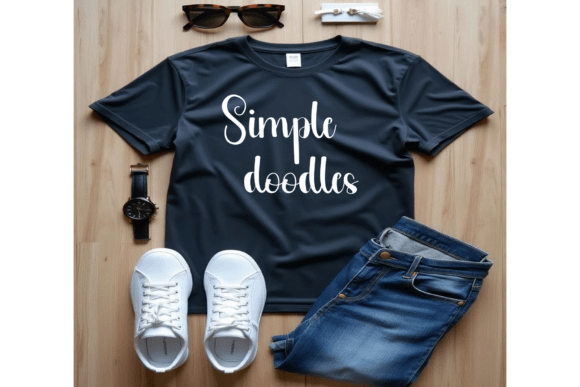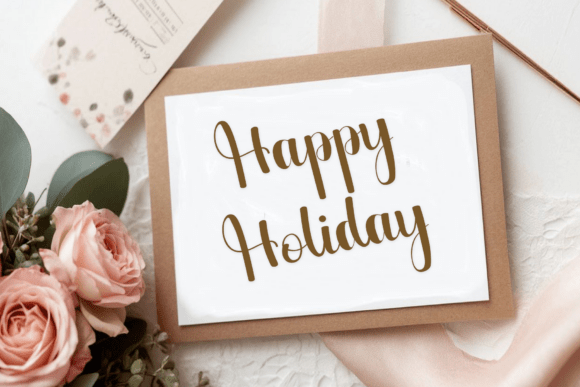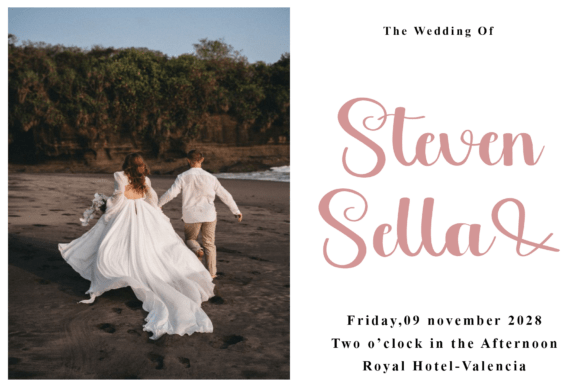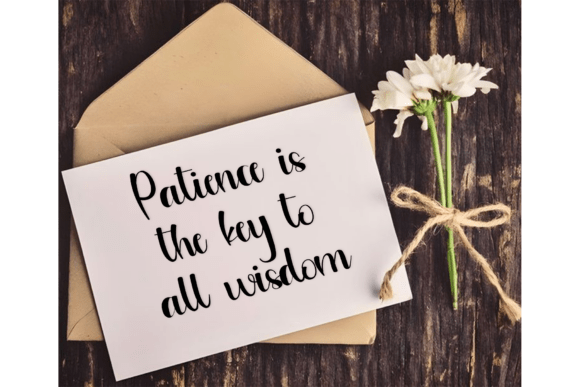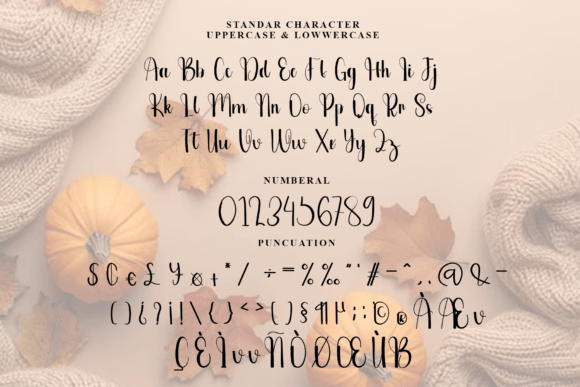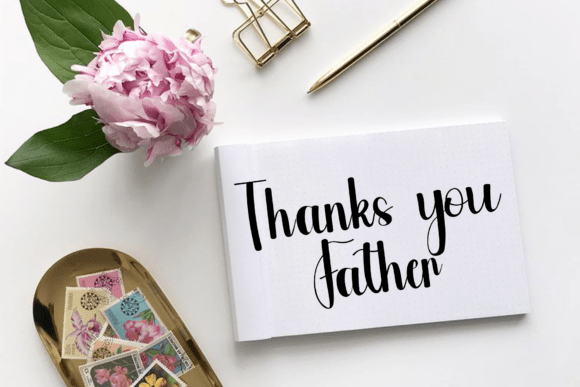
Discovering the Magic of Handwritten Scripts
Have you ever found yourself doodling in a notebook, letting your pen wander across the page as you chase the flow of creativity? It’s in these moments that we tap into the raw, emotional power of handwriting. And it’s precisely this feeling that the Butterflies Font captures in its beautifully flowing and elegant modern handwritten script.
This stunning typeface is more than just a pretty face – it’s a versatile tool for designers looking to add a touch of sophistication and luxury to their projects. Whether you’re crafting personal branding materials, photography watermarks, or wedding stationery, the Butterflies Font brings a unique, authentic charm that’s hard to resist.
As a designer, you know the value of a well-chosen font. With the Butterflies Font, you’ll be able to elevate your work to new heights, creating a lasting impression that will leave your audience in awe.
Butterflies Font Key Features
- Font Family: A unique, hand-drawn font with a whimsical and playful feel.
- Unique Characteristics: Features intricate, hand-drawn details and subtle texture, giving it a distinctive and eye-catching appearance.
Designer Review: Butterflies Font
Overall, I’d say the Butterflies Font has some nice qualities, but also some notable limitations. ✨ Let’s start with the good stuff.
- ✨ Whimsical charm: The font’s playful, hand-drawn feel gives it a unique and charming quality that’s perfect for adding a touch of whimsy to designs.
- ✨ Versatility: Despite its cursive nature, the font works surprisingly well in a variety of contexts, from headings to body text.
However, there are also some areas where the font falls short. ⚠️ Here are a few limitations to consider:
- ⚠️ Legibility issues: At smaller font sizes, the letterforms can become quite cramped and difficult to read.
- ⚠️ Limited support for special characters: The font’s cursive nature means that it may not support all the special characters you need, which can be a problem in certain contexts.
Overall, I’d say the Butterflies Font is a nice addition to any designer’s toolkit, but it’s not without its limitations. With careful use and consideration of its strengths and weaknesses, it can be a valuable asset in the right design projects.
Tips for Getting the Most Out of the “Butterflies Font”
Use the “Butterflies Font” for whimsical and playful designs, such as children’s book illustrations or wedding invitations.
Combine the font with colorful illustrations or graphics to create a visually appealing design.
Experiment with different font sizes and styles to create a unique and eye-catching design.
The “Butterflies Font” is ideal for:
Children’s book illustrations and storybooks
Alternatives to Butterflies Font is a beautiful, cursive script font known for its elegance and whimsy. However, it may not be suitable for all designs. Here are a few alternatives that offer similar characteristics:
Pacifico Font is a modern script font that exudes a sense of relaxation and sophistication. It is ideal for use in designs that require a touch of elegance, such as wedding invitations, menus, and travel brochures. Pacifico Font is more formal than Butterflies Font and has a more polished appearance.